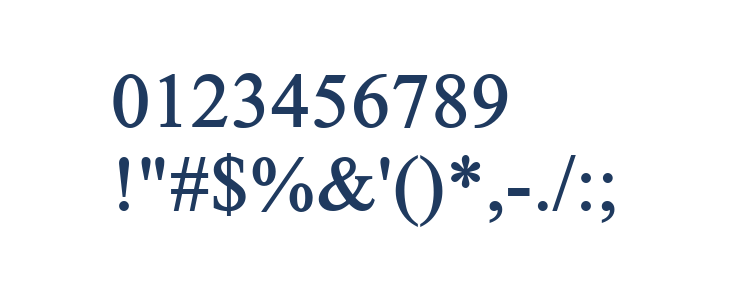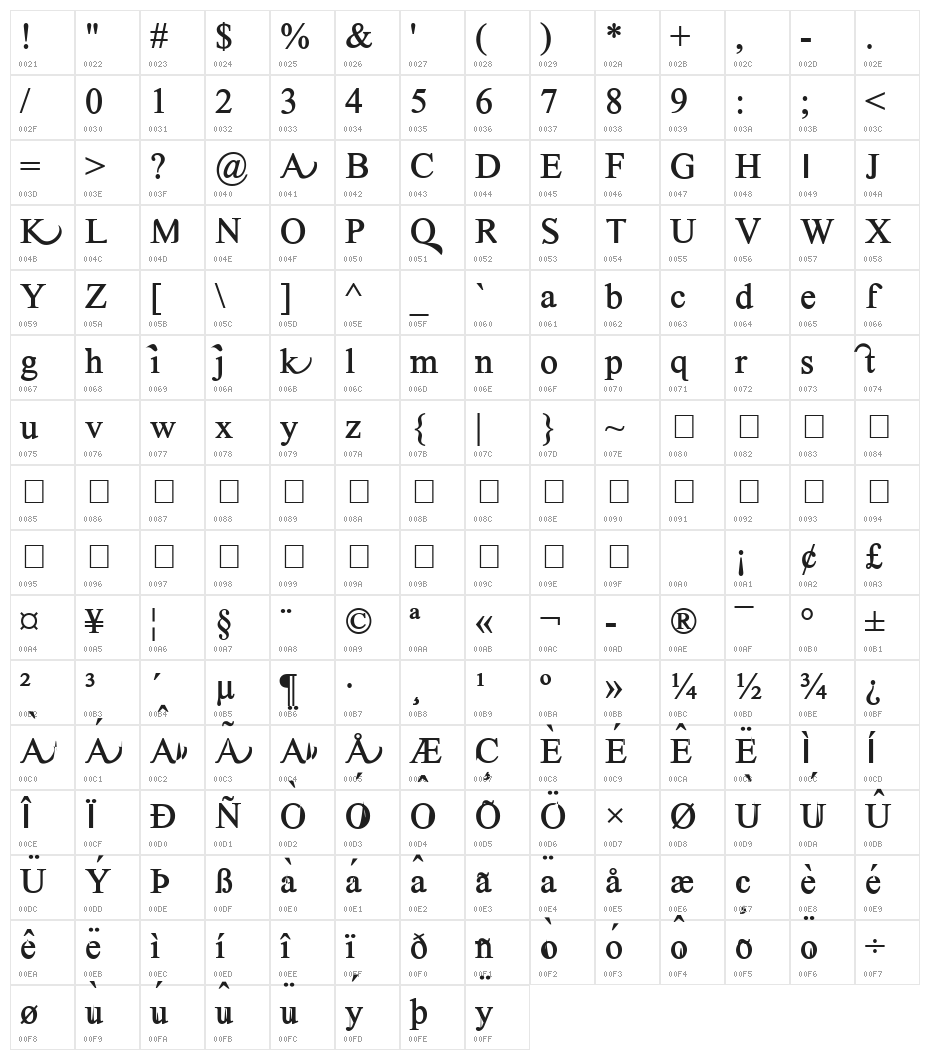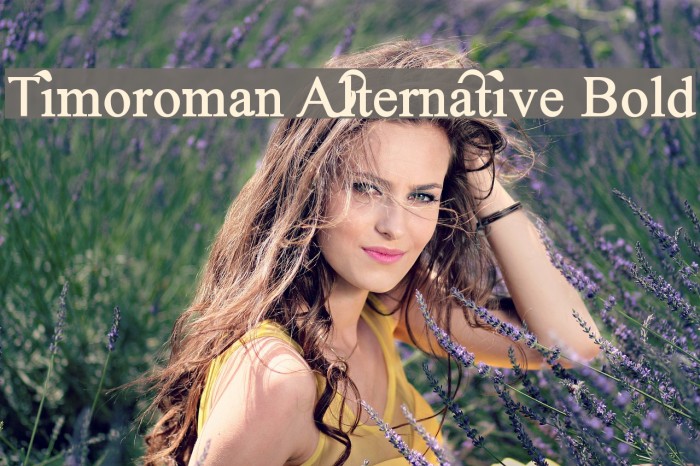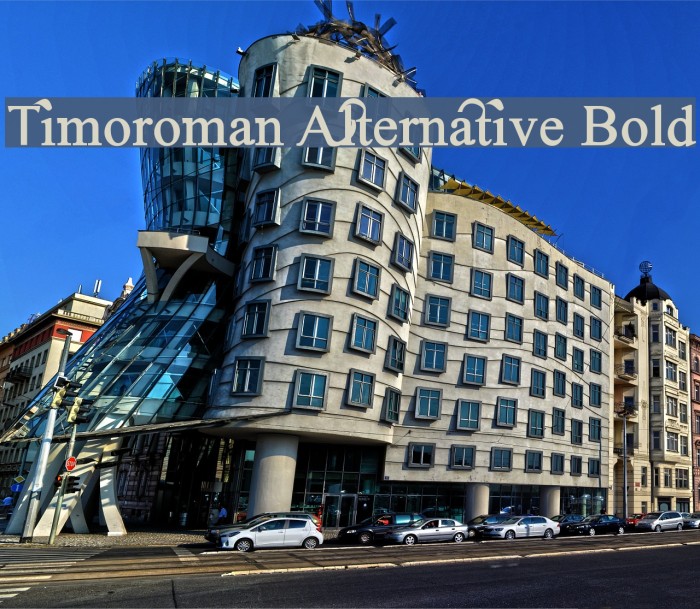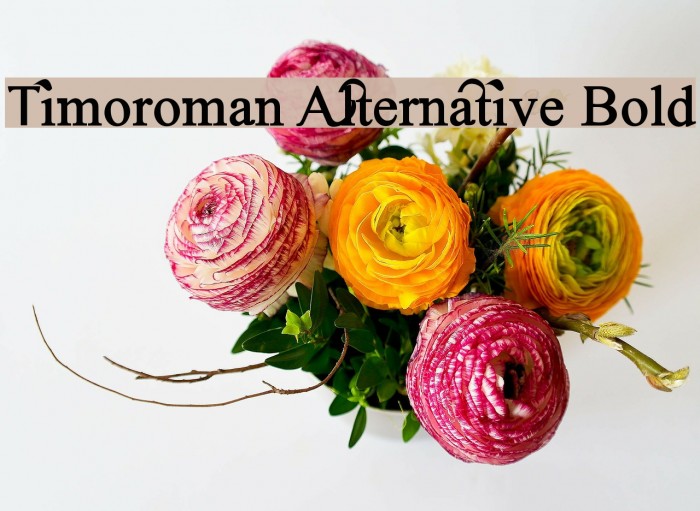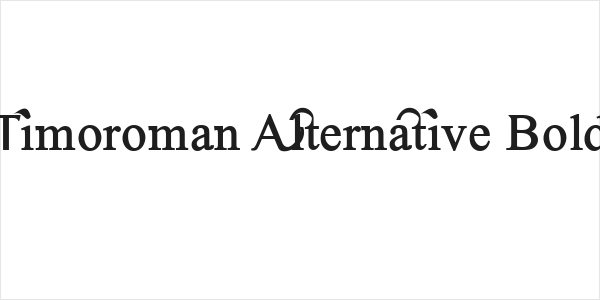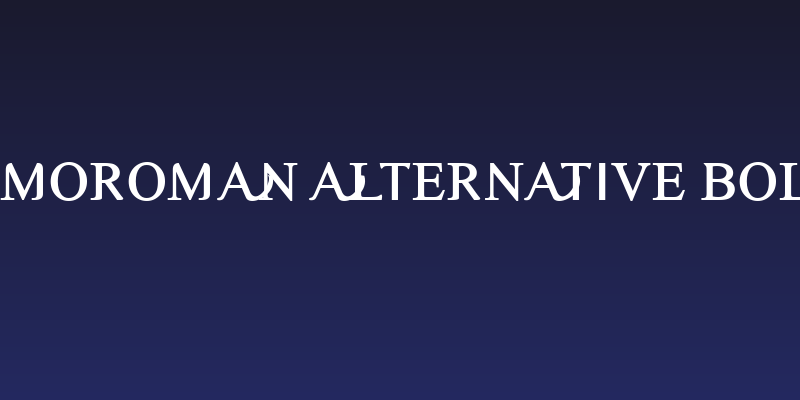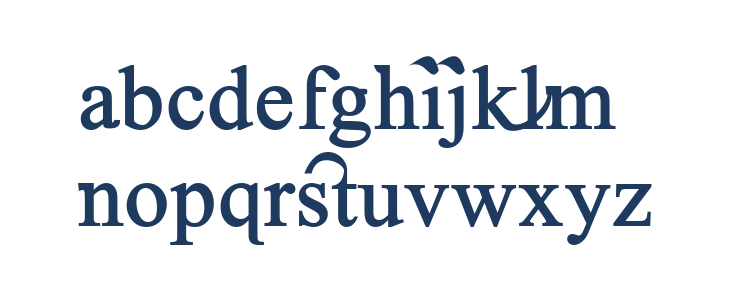
Timoroman Alternative Bold Font
Timoroman Alternative Bold Description
This font exhibits a classic serif style with pronounced, elegant serifs that give it a traditional and formal appearance. The characters are bold, with a strong presence that makes them stand out. The uppercase letters have a stately and authoritative look, while the lowercase letters maintain a consistent style with slightly rounded edges. The numerals are clear and well-defined, ensuring readability. Special characters are designed to match the overall aesthetic, adding to the font's versatility. The font's boldness and classic design make it suitable for a variety of applications.
| Use Case | Headlines, Book titles, Formal documents |
| Proposed Projects | Ideal for use in formal documents, book titles, headlines, and branding materials where a traditional and authoritative look is desired. |